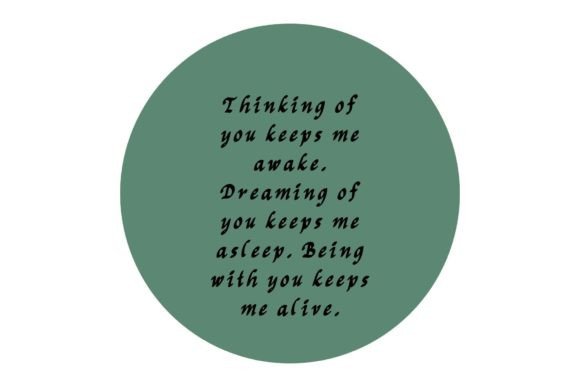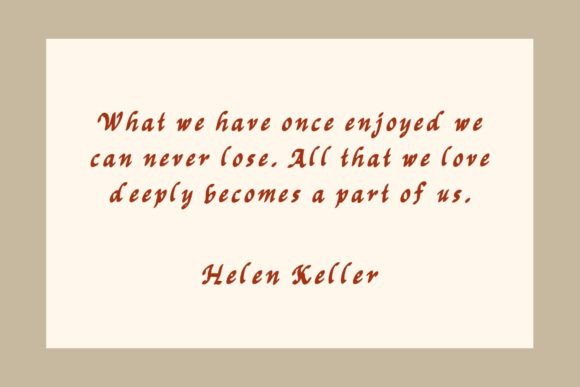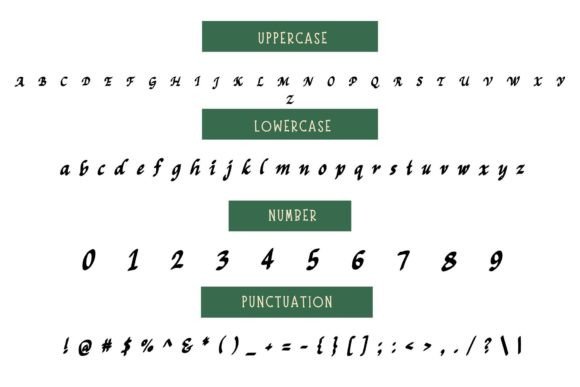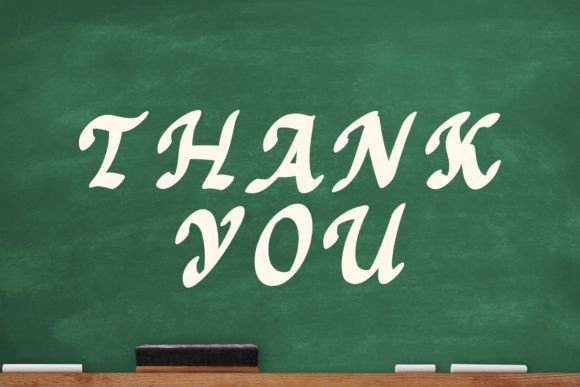
Introduction to Mitchell Font
As a designer, there’s nothing quite like the thrill of finding that perfect font to bring a project to life. For me, it was a Saturday afternoon spent brainstorming ideas for a friend’s birthday party, and stumbling upon the Mitchell Font. Its playful, handwritten charm instantly captured my attention, and I knew I had to incorporate it into the design. Little did I know, this font would become a staple in my creative arsenal, and a valuable resource for designers looking to add a touch of authenticity to their high-quality projects.
The Mitchell Font is a design resource like no other, offering a transparent background that allows for seamless integration into any design. With its free download available, designers can experiment with this versatile font on a wide range of creative projects, from logos and branding to invitations and greeting cards. Whether you’re a seasoned pro or just starting out, the Mitchell Font is an invaluable addition to any design toolkit.
Key Features of Mitchell Font
- High-quality, professional font suitable for creative projects, including advertising, graphic design, and publishing.
- Comes with a transparent background, allowing for easy integration with various design elements and backgrounds.
- Features a clean, modern design with a range of weights and styles, making it suitable for a variety of creative projects.
- Designed to be highly legible, even at small font sizes, ensuring that your text remains clear and readable.
Honest Review: Mitchell Font
I recently had the chance to work with the Mitchell Font, and I must say it’s a solid addition to any design resource collection. This font is part of the high-quality fonts available for free download, making it an excellent choice for creative projects on a budget.
What works well: ✨ The Mitchell Font has a clean and modern design that works well for both digital and print projects. The transparent background allows for seamless integration with any design element, making it easy to use in various creative contexts. Additionally, the font is highly versatile and can be used for a wide range of projects, from logos to headings.
Limitations: ⚠️ While the Mitchell Font is a great resource, it may not be suitable for projects that require a high level of customizability. The font’s design is quite straightforward, which may limit its use in complex design scenarios. Furthermore, some users may find the font’s simplicity too minimalist for their taste.
Overall impression: The Mitchell Font is a well-designed and useful resource that can elevate any creative project. While it may have some limitations, its high-quality design and free download make it an excellent choice for designers on a budget.
- Clean and modern design
- Highly versatile
Mitchell Font
The Mitchell Font is a versatile, high-quality font that is ideal for various creative projects. It features a transparent background, making it easy to integrate into your designs.
Tips for Getting the Most Out of Mitchell Font
1. Experiment with different font sizes and styles to achieve the desired effect.
2. Combine the Mitchell Font with other high-quality design resources for a cohesive look.
3. Use the transparent background to create a seamless design experience.
The Mitchell Font is ideal for:
1. Business cards and marketing materials.
2. Social media graphics and ads.
3. Website design and development.
4. Print materials and packaging design.